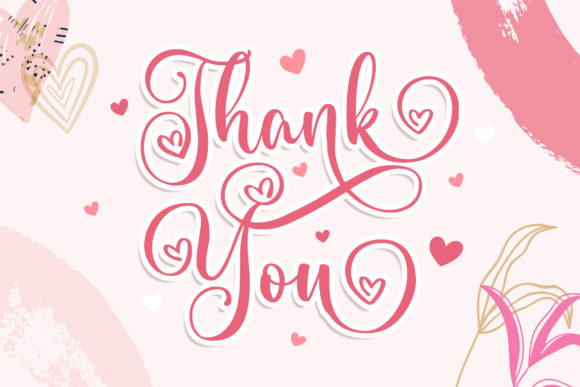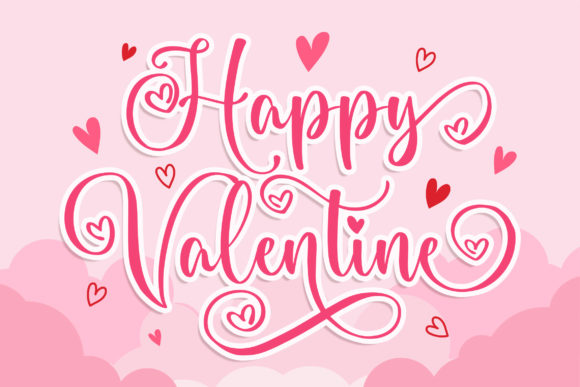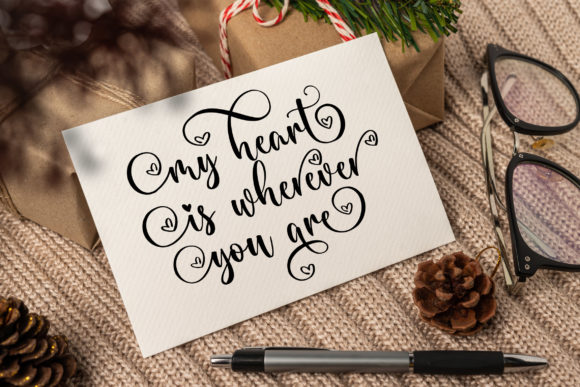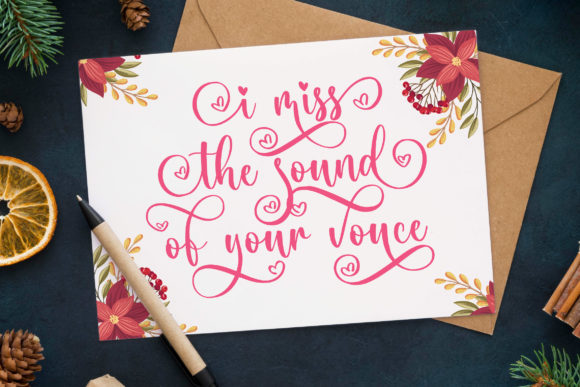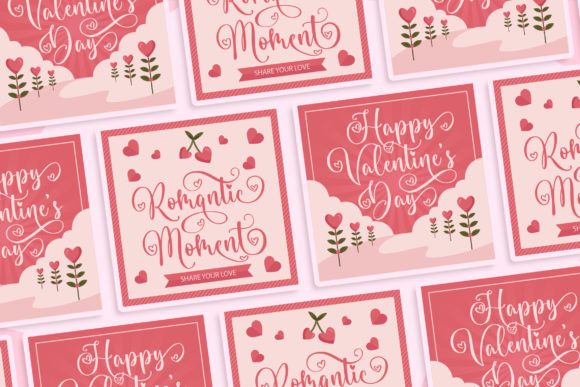
Romantic Heart Font
About Romantic Heart Font
Romantic Heart is a ravishing handwritten font. This versatile script font has a wide spectrum of applications ranging from greeting cards to headlines and is guaranteed to add a romantic feel to your next project.